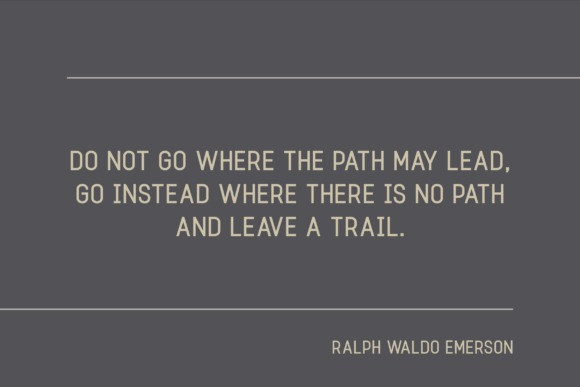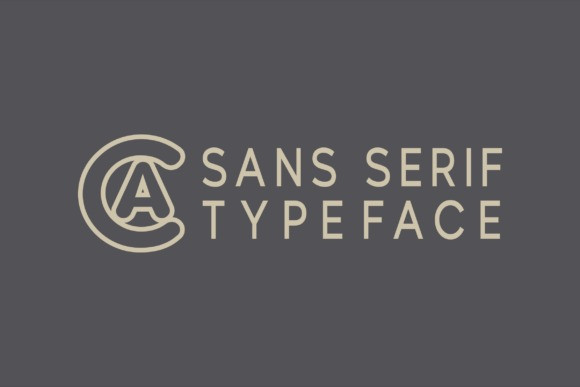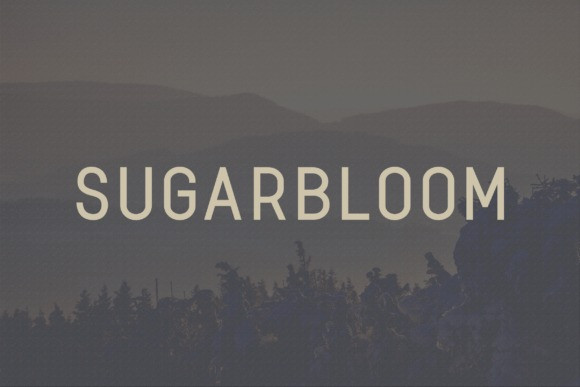
Sugarbloom Font
Sugarbloom Font, a modern, classy sans serif typeface. A sans serif typeface that contains upper characters, number 0-9 and a range of punctuation and symbols. An extremely versatile font, perfect for logos, weddings, invitations, quotes, advertisements, print, magazines, and more!